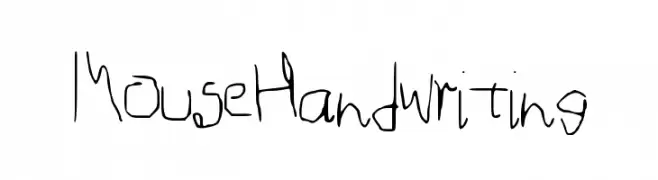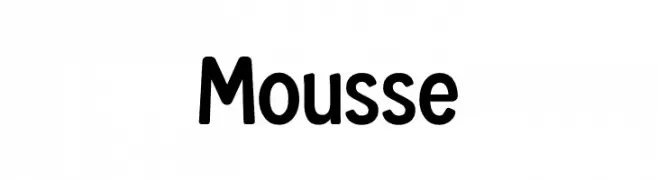
A modern, rounded sans-serif font with uniform strokes and balanced spacing.
A modern, rounded sans-serif font with excellent readability.
An elegant script font with flowing, cursive strokes and subtle flourishes.
A monospaced, modern typeface with low contrast and uniform spacing.
A bold slab serif font with strong serifs and uniform strokes.
A bold, oblique font with consistent stroke thickness and a modern slant.
A clean, oblique font with a modern and dynamic style.
A playful, hand-drawn font with a casual and informal style.
A playful, hand-drawn font with thin, irregular strokes and a whimsical style.
A bold, distressed script font with dynamic curves and a rugged texture.
A bold, expressive script font with dynamic, flowing characters.
Elegant cursive font with flowing, connected letters and a sophisticated style.
A playful, handwritten font with a whimsical and casual style.
A playful, handwritten font with rounded, thin strokes and consistent letter height.
A bold, geometric font with sharp, angular cuts and a futuristic style.
A bold, modern font with thick strokes and geometric shapes.
A bold, three-dimensional font with a playful and dynamic style.
A bold, 3D cartoon-style font with thick outlines and uppercase letters.
A bold, italicized font with high contrast and dynamic slant.
A bold, high-contrast serif font with dramatic strokes and a commanding presence.
A futuristic, angular font with a bold and geometric design.
A chaotic, expressive font with irregular strokes and a raw, edgy appearance.
A playful, bold handwritten font with a casual and friendly style.
A playful, handwritten font with bold, rounded strokes and a casual style.